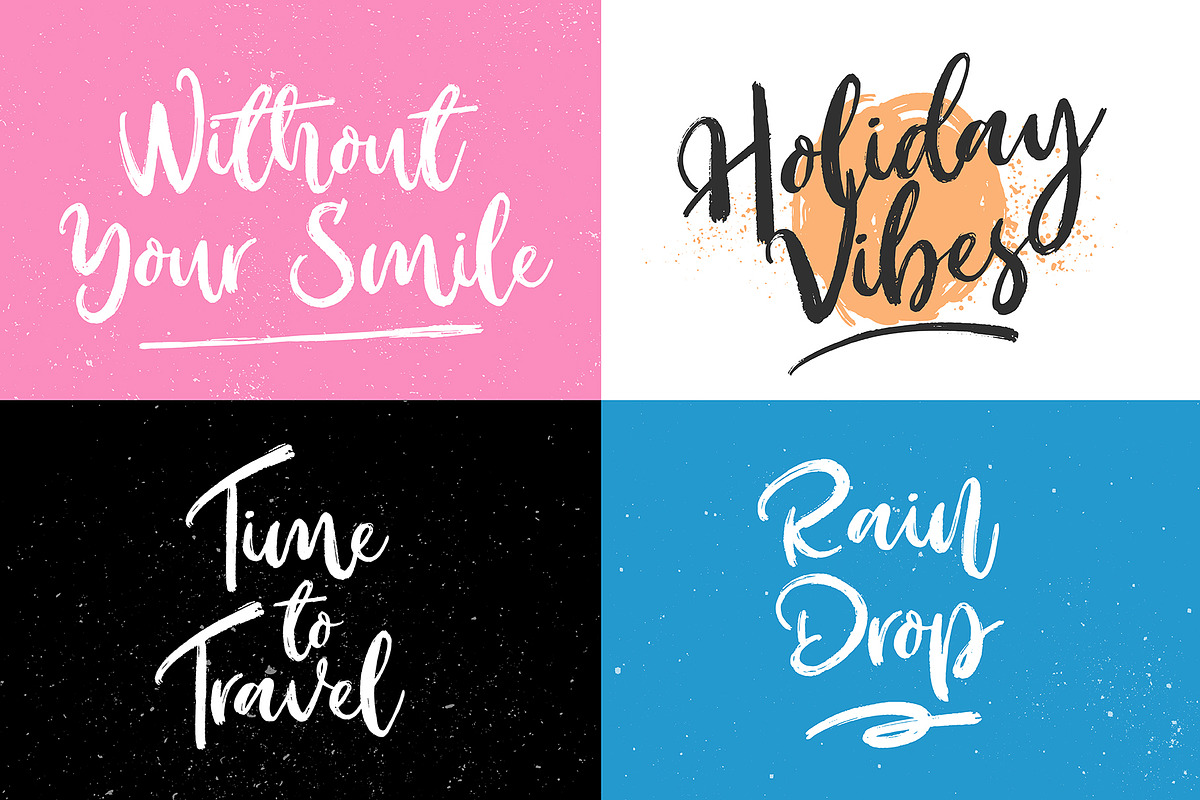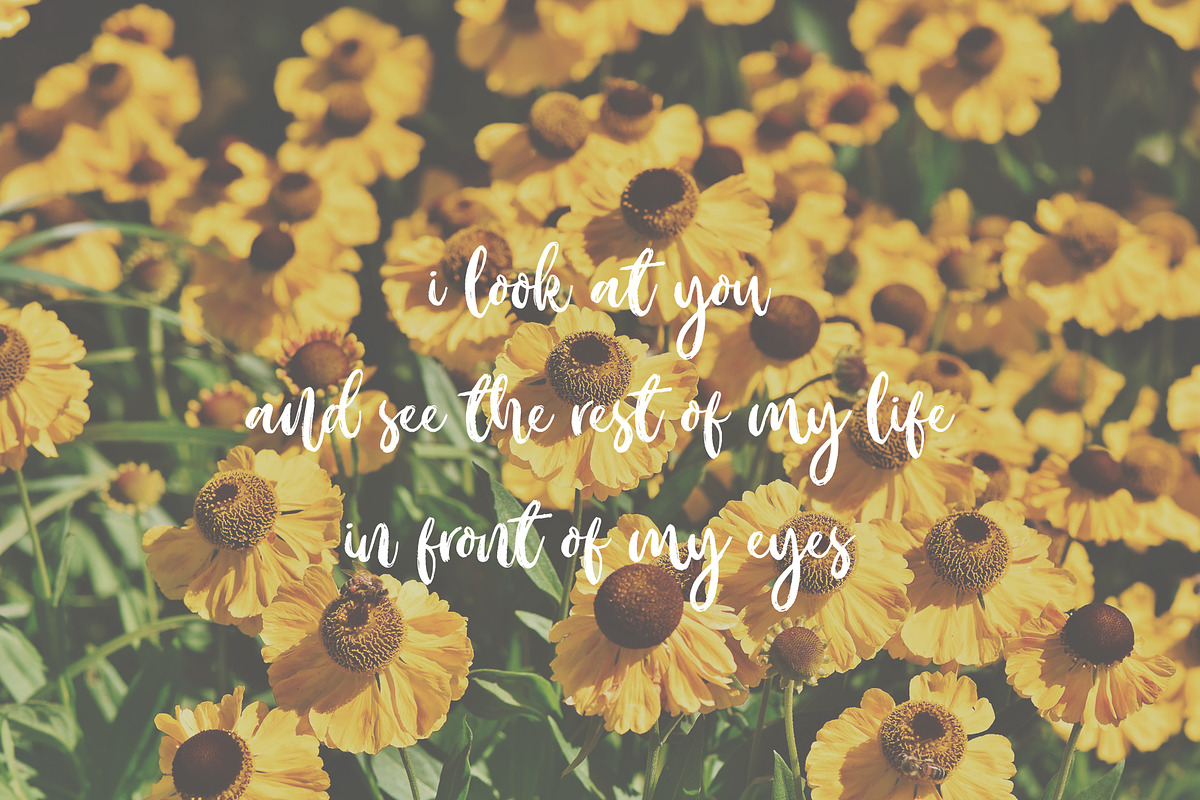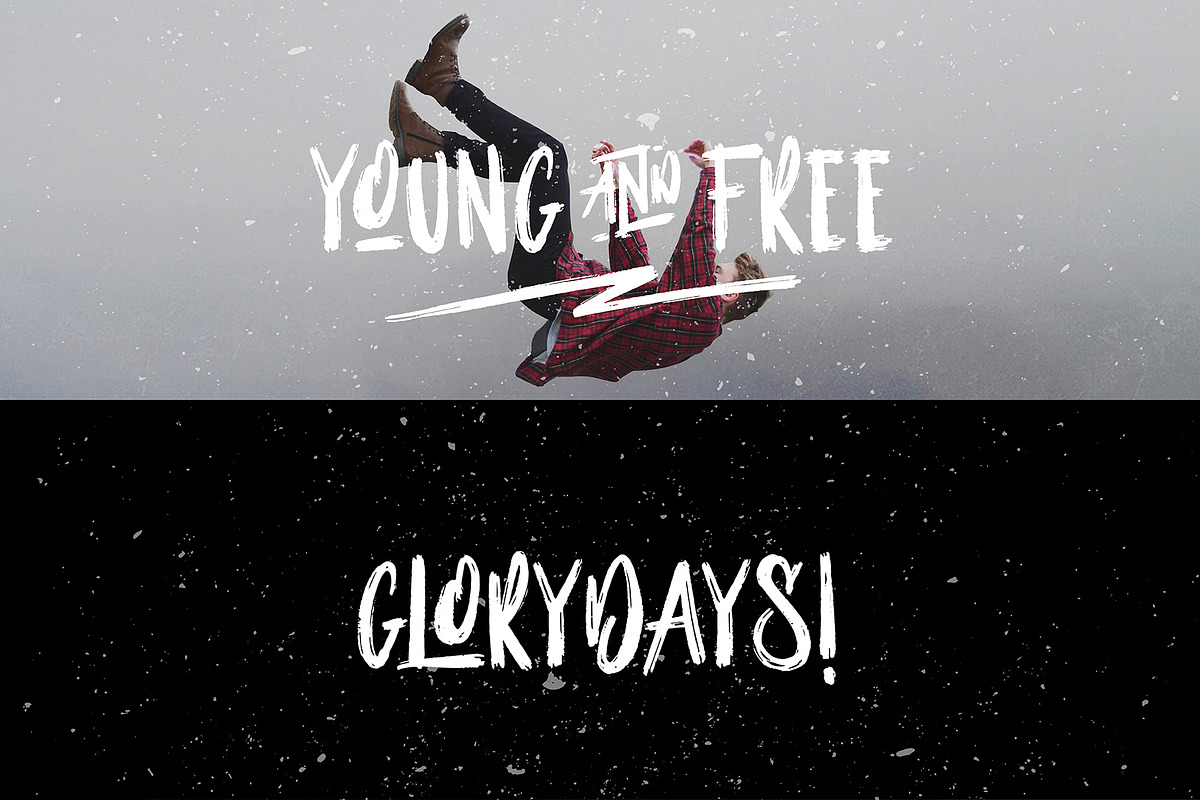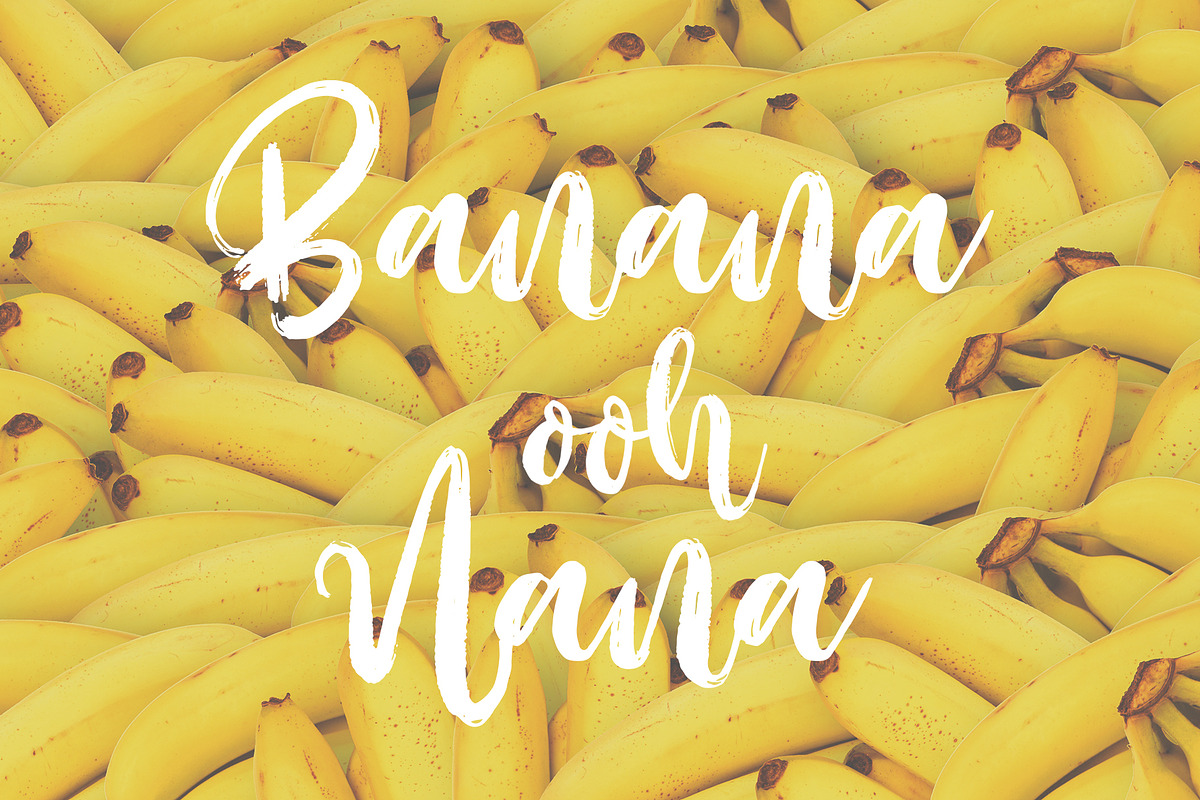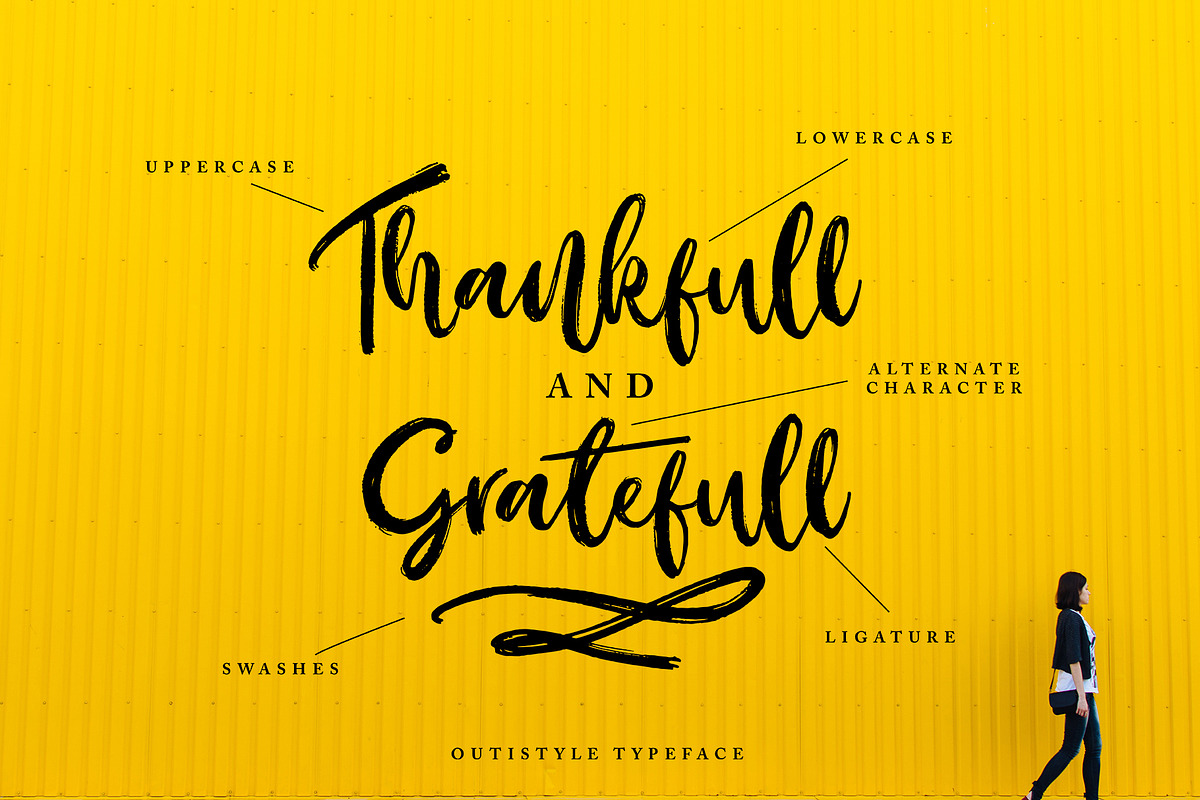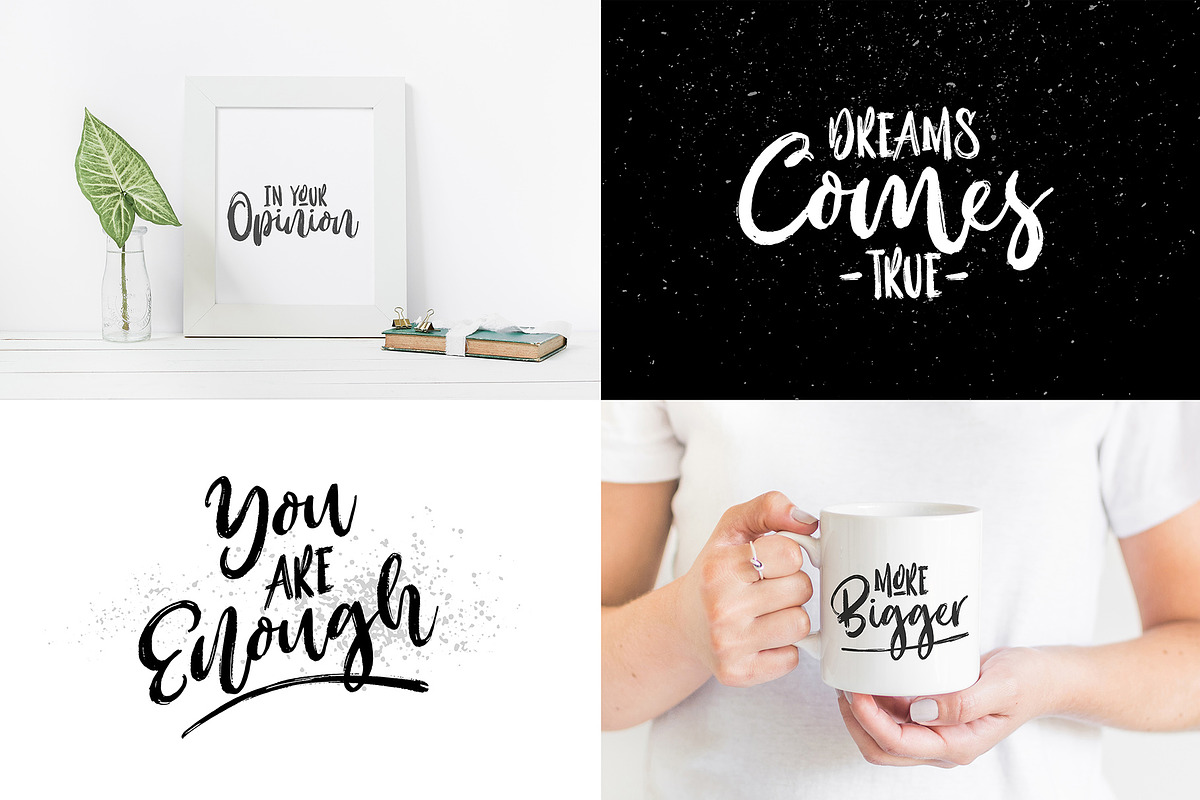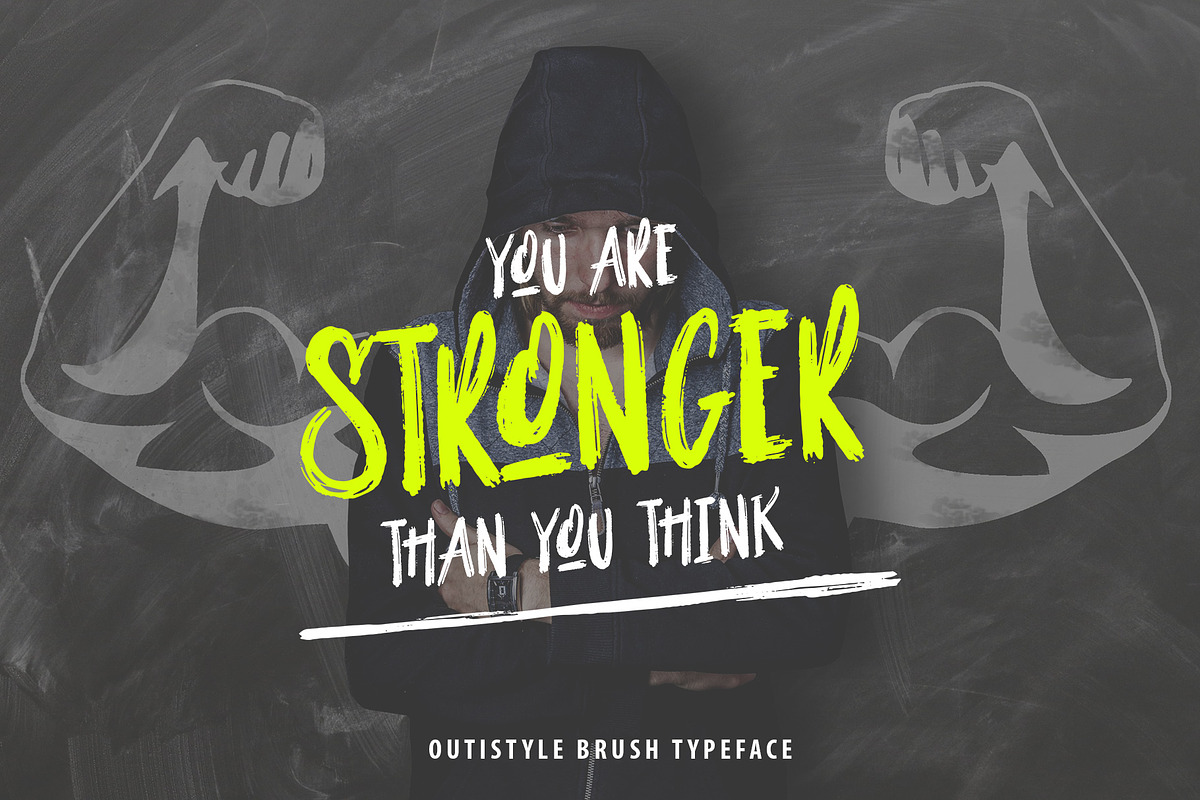
Outistyle Font Duo
Outistyle Font Duo have 2 styles : Script and Brush with very textured brush effect. The combination of two fonts makes the font be very fun and playfull to be combine. Also you can mix and match with swashes and catchword to makes your uniqe design. Suitable and applicable to create typography design, christmas card, branding, logos, product packaging, invitation, qoutes, t-shirt, label poster etc.
Punctuation and Number
Multilingual Language
Alternate Character & Ligature